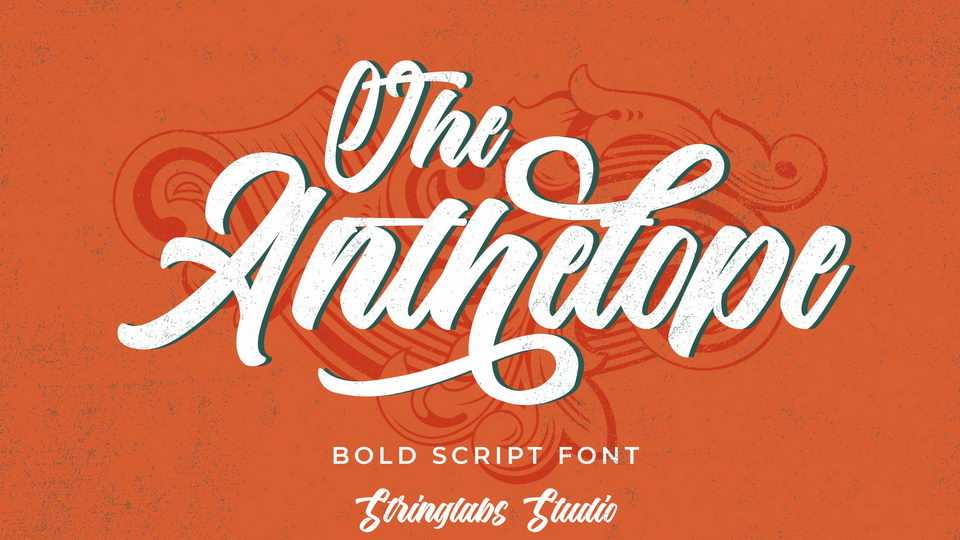
Download Anthelope font, a retro bold script with groovy style, unique design taste and combine with classic retro style of the 80s, trendy, vintage, and sporty.